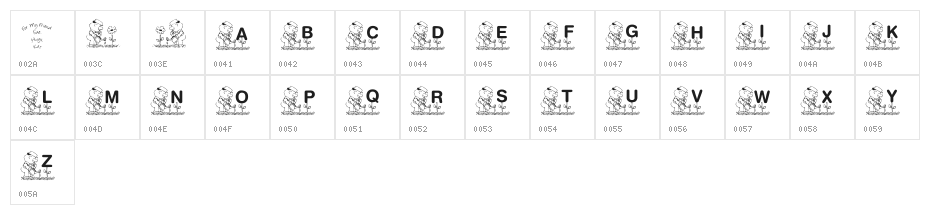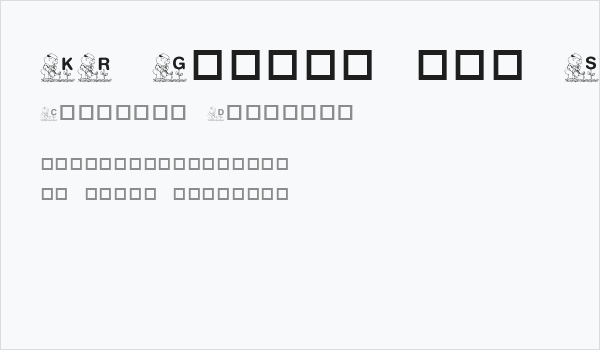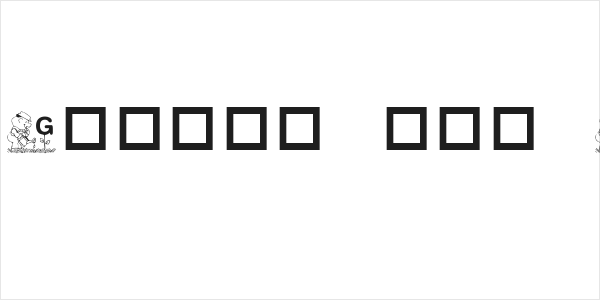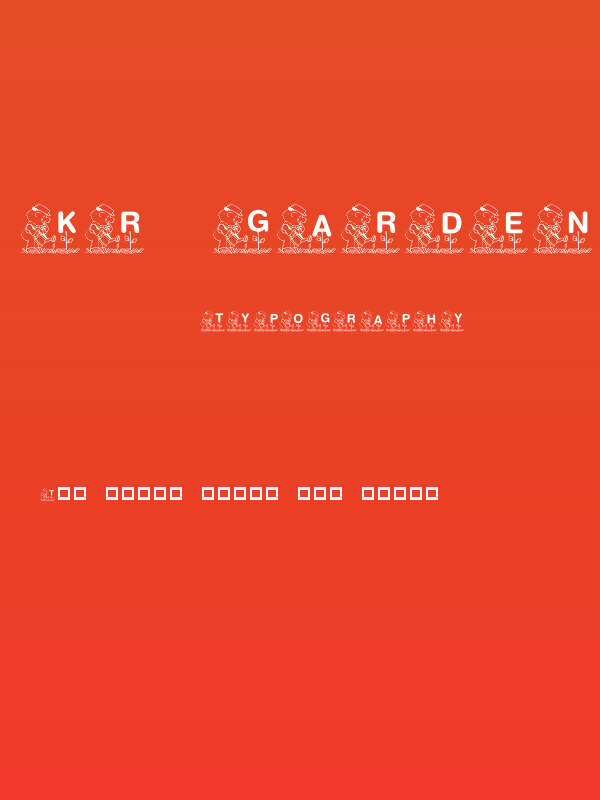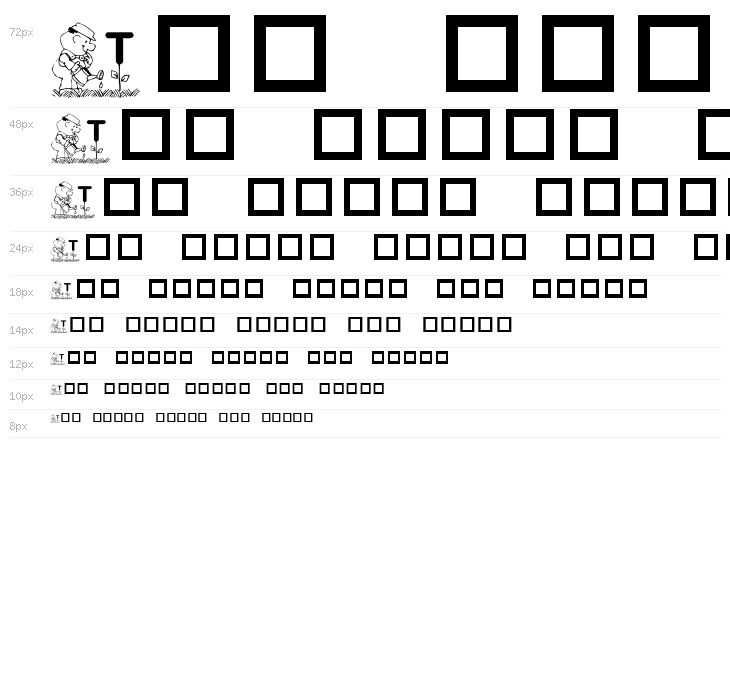
KR Garden for Sue Font
KR Garden for Sue Description
This playful and decorative font features each letter accompanied by a whimsical garden gnome illustration, adding a unique and charming touch to the characters. The letters are bold and sans-serif, providing a clear and modern look that contrasts with the intricate gnome designs. This font is perfect for projects that require a fun and lighthearted aesthetic, such as children's books, greeting cards, or themed event invitations. The combination of bold lettering and detailed illustrations makes it stand out, ensuring that any text using this font will capture attention.